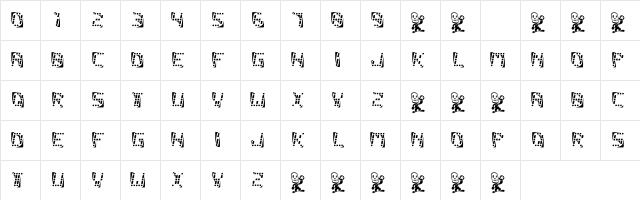
Malfunction Regular Free Font
Malfunction Regular
Design Context for Malfunction
Malfunction has an approachable, lighthearted character - its loose, expressive forms are well-suited to children's content, casual branding, and fun-first design.
Font Pairing: Pairs well with a rounded or humanist sans for body copy, maintaining the friendly tone without relying on Malfunction to carry extended reading.
Pro Tip: Use Malfunction at larger display sizes where its expressive character can land. Pair with a clean, simple sans for body copy to maintain readability.